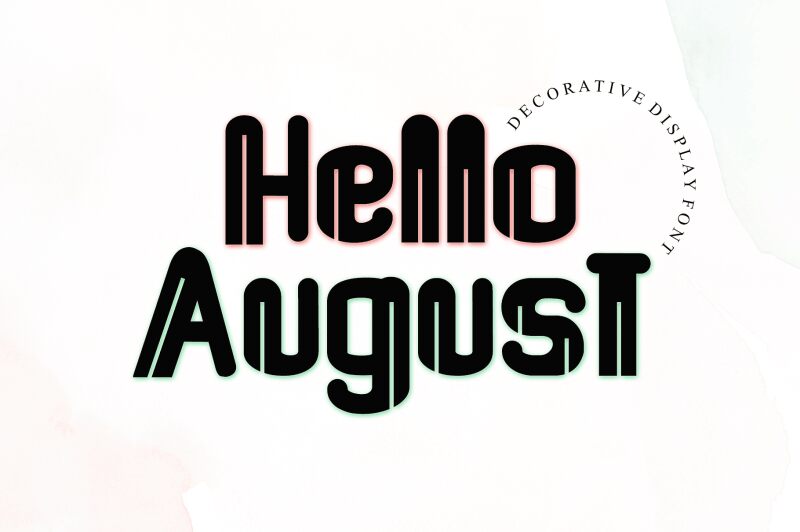
Hello August font by Letterafa Studio is a bold display typeface that merges geometric and retro-inspired elements with a modern twist. It features minimalist design and sleek appearances to complement its legibility. This combination makes it unusual and remarkable, making it suitable for heading designs, poster illustrations, or branding projects.